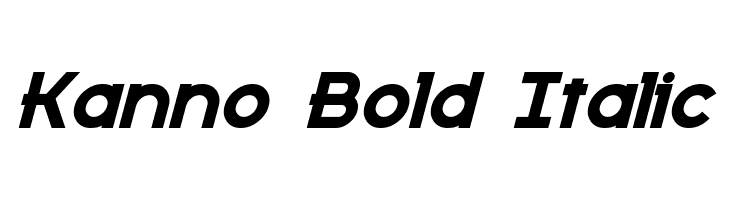
• Kanno Bold Italic
Bold, italic font with a modern, dynamic slant and thick strokes.
• Kanno Italic
A modern, italicized font with consistent stroke thickness and dynamic style.
• Kanno Bold
A bold, geometric typeface with a modern and clean design.